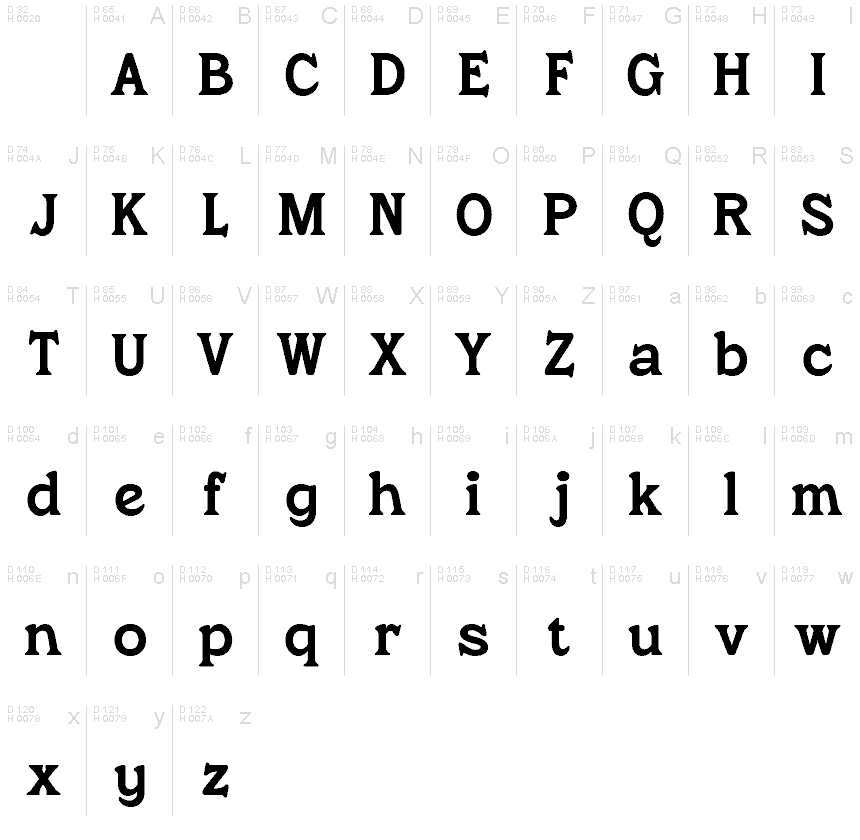
CS Asquint Regular Demo
CS Asquint font is a serif font designed by Craft Supply Co. A robust presence and distinctive personality are apparent in the design, with thick and thin strokes shaped elegantly. The lines show refinement for an authoritative aesthetic that can’t be missed. This traditional feel offers modern adaptability, creating an interesting combination that commonly targets individuals who care about appearances.
This font is appropriate for elegant advertising, branding presentations, stationery designs, label presentations, signage designs, business cards layouts, apparel designs, wedding invitations, product packaging design concepts as well as magazine covers and editorials.